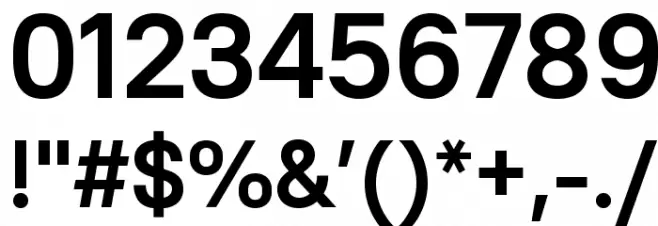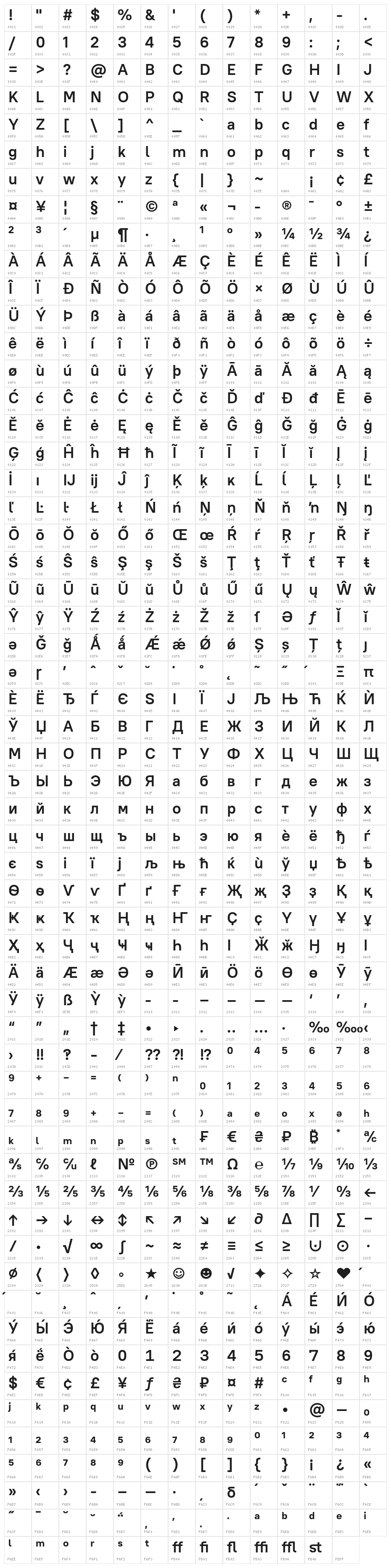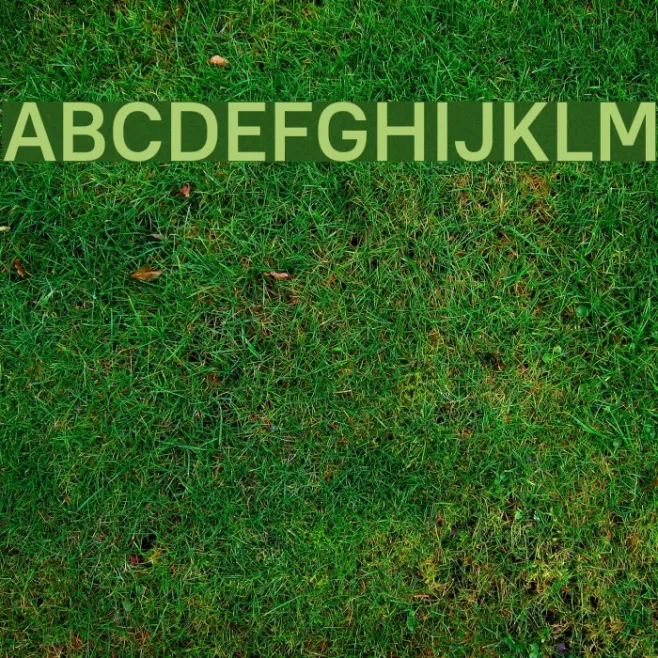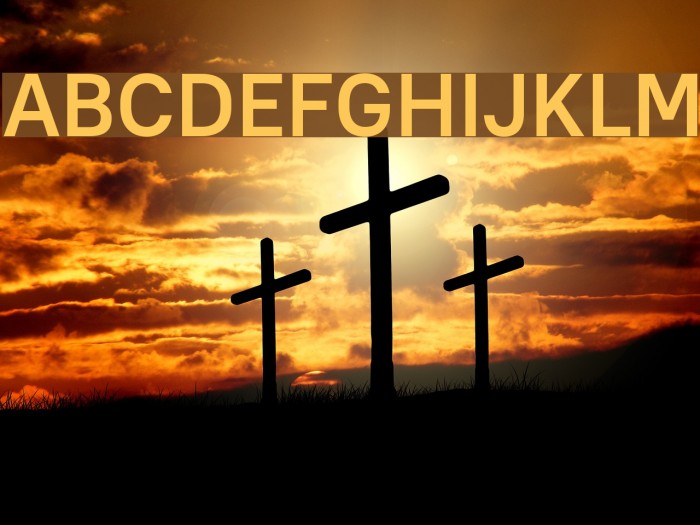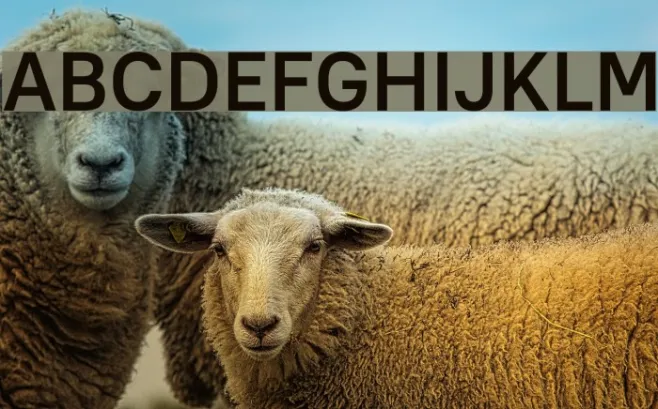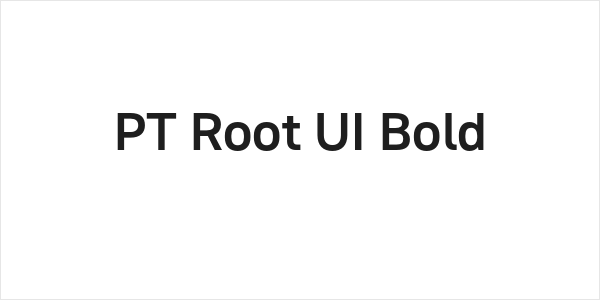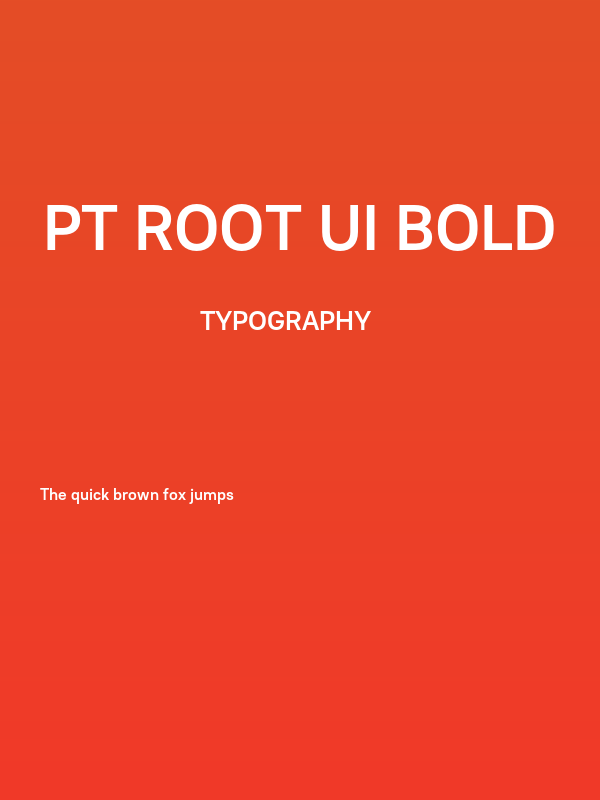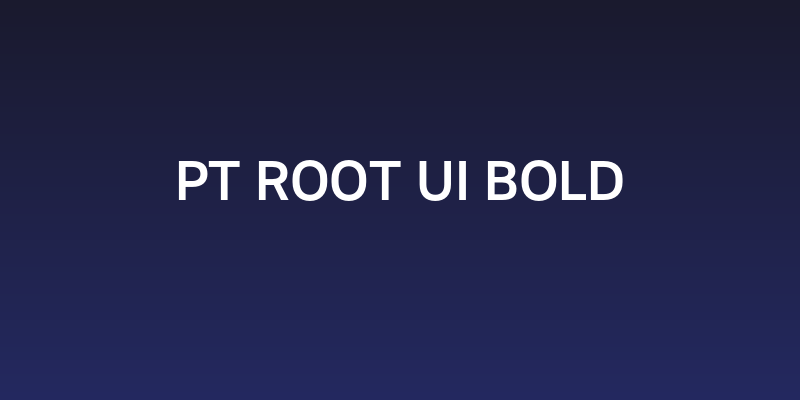
PT Root UI Bold Font
PT Root UI Bold Description
This font features a clean and modern sans-serif design, characterized by its bold weight and straightforward geometric shapes. The characters are well-proportioned, with a consistent stroke width that provides a uniform appearance. The uppercase letters are tall and commanding, while the lowercase letters maintain a balanced and approachable look. The numerals are clear and easily distinguishable, making them suitable for various applications. Special characters are designed with the same attention to detail, ensuring they integrate seamlessly with the rest of the typeface. Overall, this font exudes a contemporary and professional aesthetic, ideal for digital interfaces and print media.